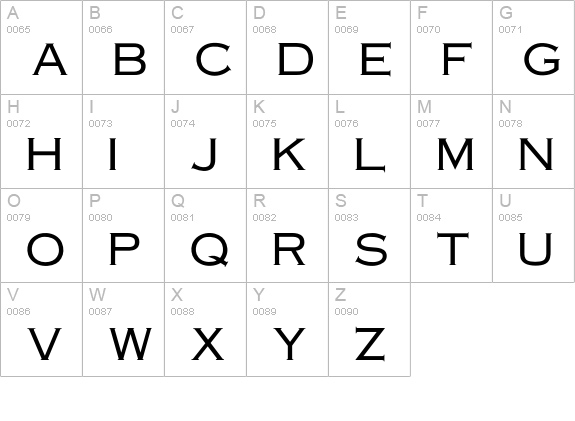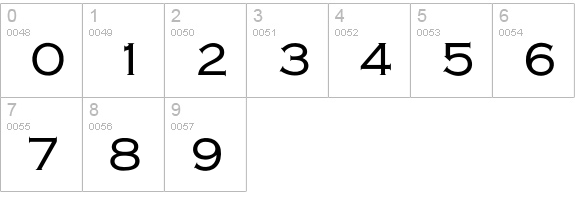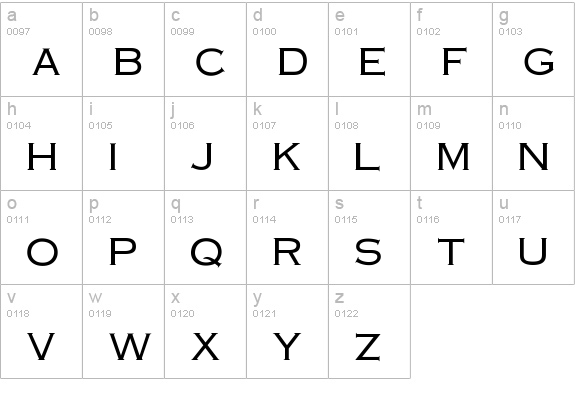
OPTICopperplate-Light Font Details
OPTICopperplate-Light is a refined, elegant variant in the OPTICopperplate typeface family \xE2\x80\x94 well suited to elegant body text, refined sub-headings, and luxury branding.
The OPTICopperplate-Light font is a sophisticated and elegant typeface that exudes timeless beauty and refinement. Its delicate strokes and clean lines make it perfect for adding a touch of class to any design project. This font is ideal for creating elegant invitations, branding materials, and editorial layouts. What sets OPTICopperplate-Light apart is its versatility and readability, making it suitable for a wide range of design applications. Whether you are working on a wedding invitation or a corporate brochure, this font will help you achieve a polished and professional look. Best of all, OPTICopperplate-Light is available for free download at FontsMarket.com. Take advantage of this opportunity to enhance your design projects with this exquisite font without any cost. Download it today and elevate your designs with the timeless beauty of OPTICopperplate-Light.